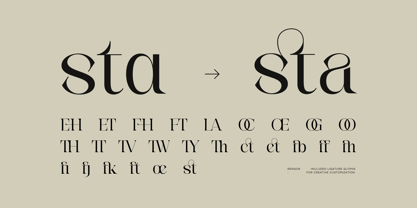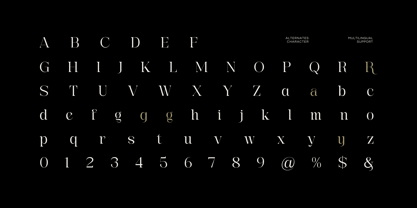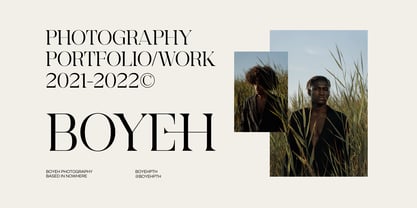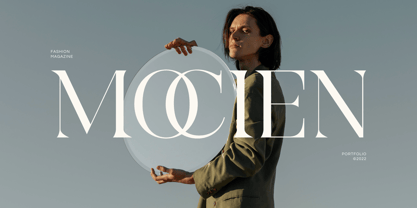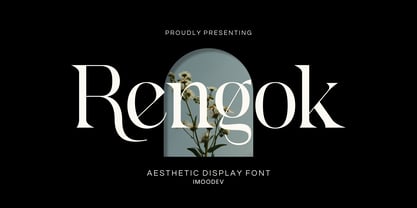
Rengok
von Imoodev
Die Schriftfamilie Rengok wurde von Aulia Savira Putri entworfen und von Imoodev veröffentlicht. Rengok enthält 1 Stile.
Rengok is a refined, aesthetic display font with a sophisticated and elegant serif style with high contrast between thick and thin strokes. It has a classic yet contemporary look, characterized by sharp serifs and elegant, elongated letterforms. This font exudes sophistication and is well-suited for luxury or high-end branding, as well as artistic portfolios and editorial design.
The font’s curves and extended serifs give it a classic, luxurious feel, while its modern proportions and sleek lines lend it a contemporary touch.
“Rengok” would be an excellent choice for branding, as well as artistic portfolios, editorial headings, and other design that benefit from a refined and expressive typeface. The design allows for a strong visual impact, combining elegance with artistic versatility, as it can add both sophistication and personality to a wide range of design projects.
Designer: Aulia Savira Putri
Herausgeber: Imoodev
Foundry: Imoodev
Eigentümer des Designs: Imoodev